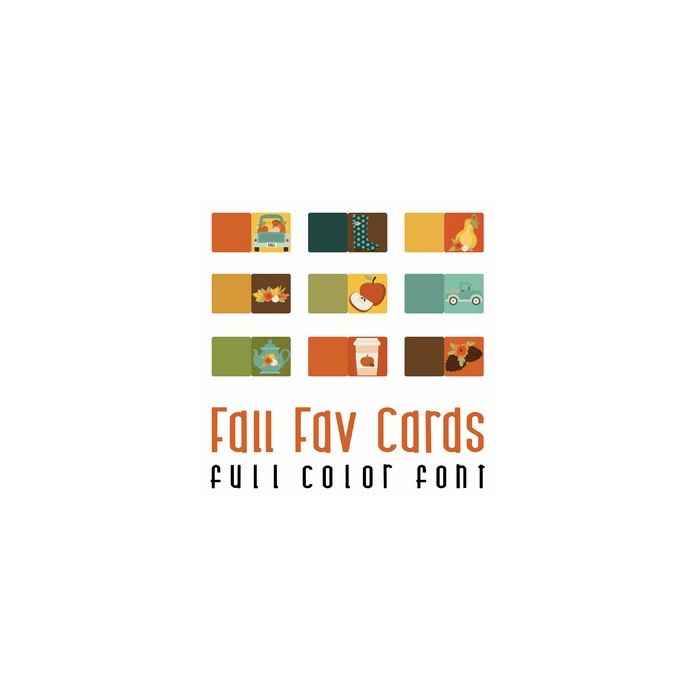
This adorable full-color doodlebat font features 26 fall favorite cards. Perfect for cards, crafts, gifts, decor, scrapbook pages, planner stickers, and more!